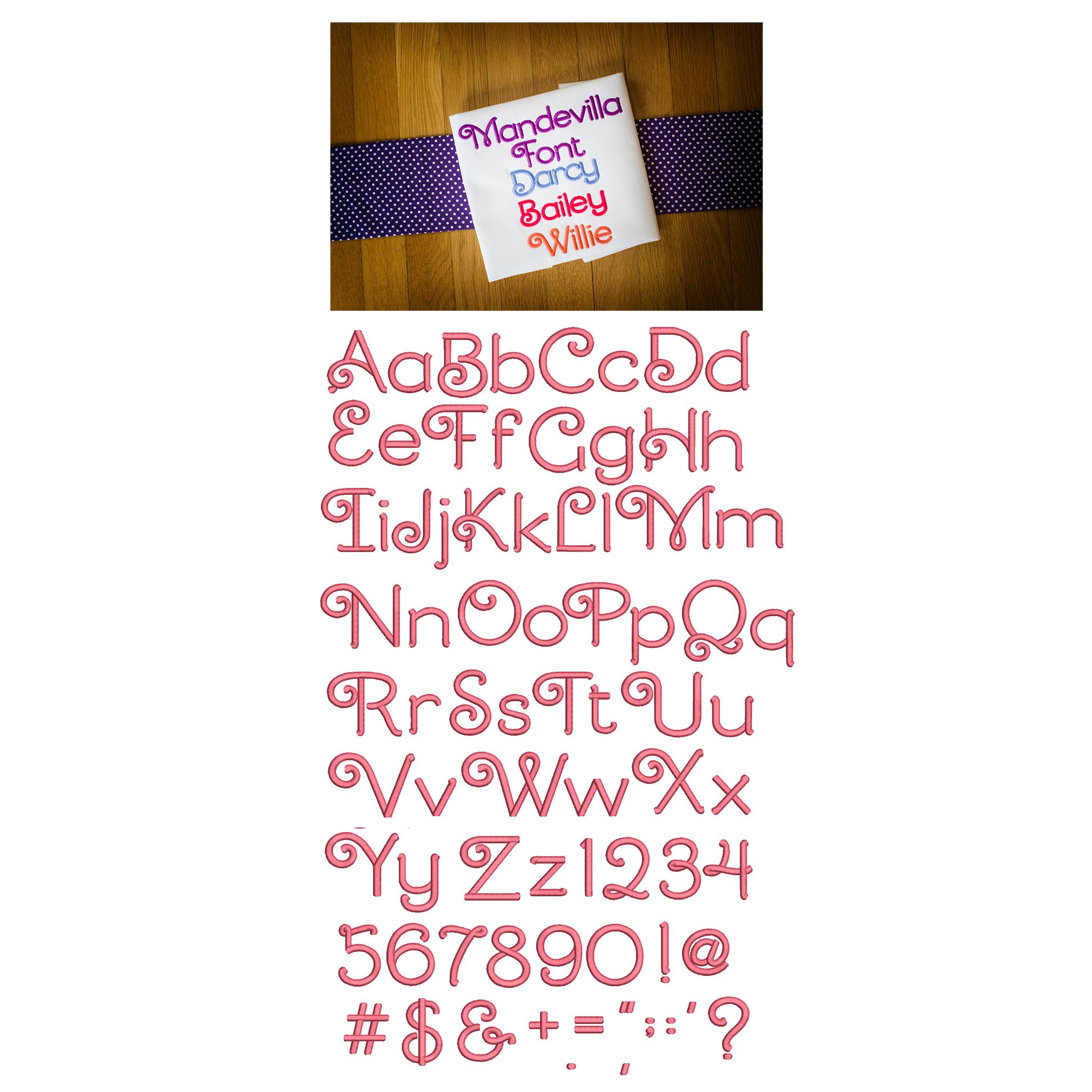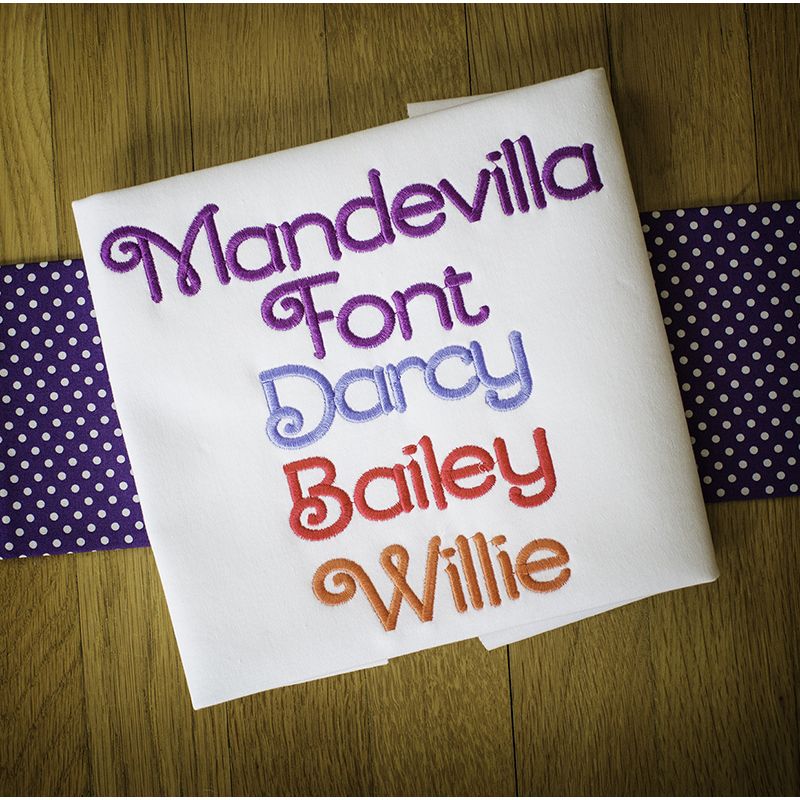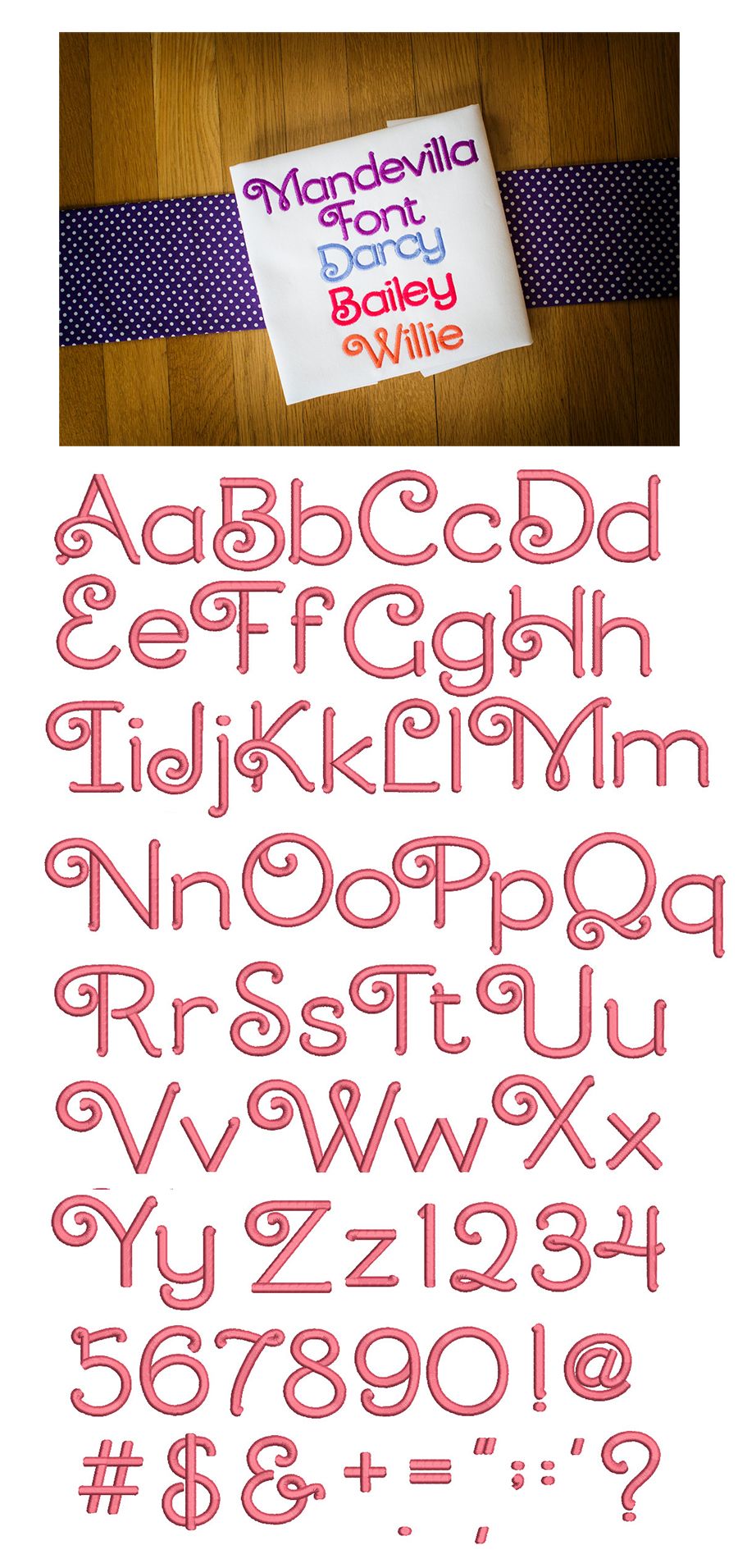
Mandevilla Satin Stitch Embroidery Font
Another super cute, clean and whimsical font. Sure to become a favorite! All of our fonts are 100% manually digitized to ensure the highest quality.